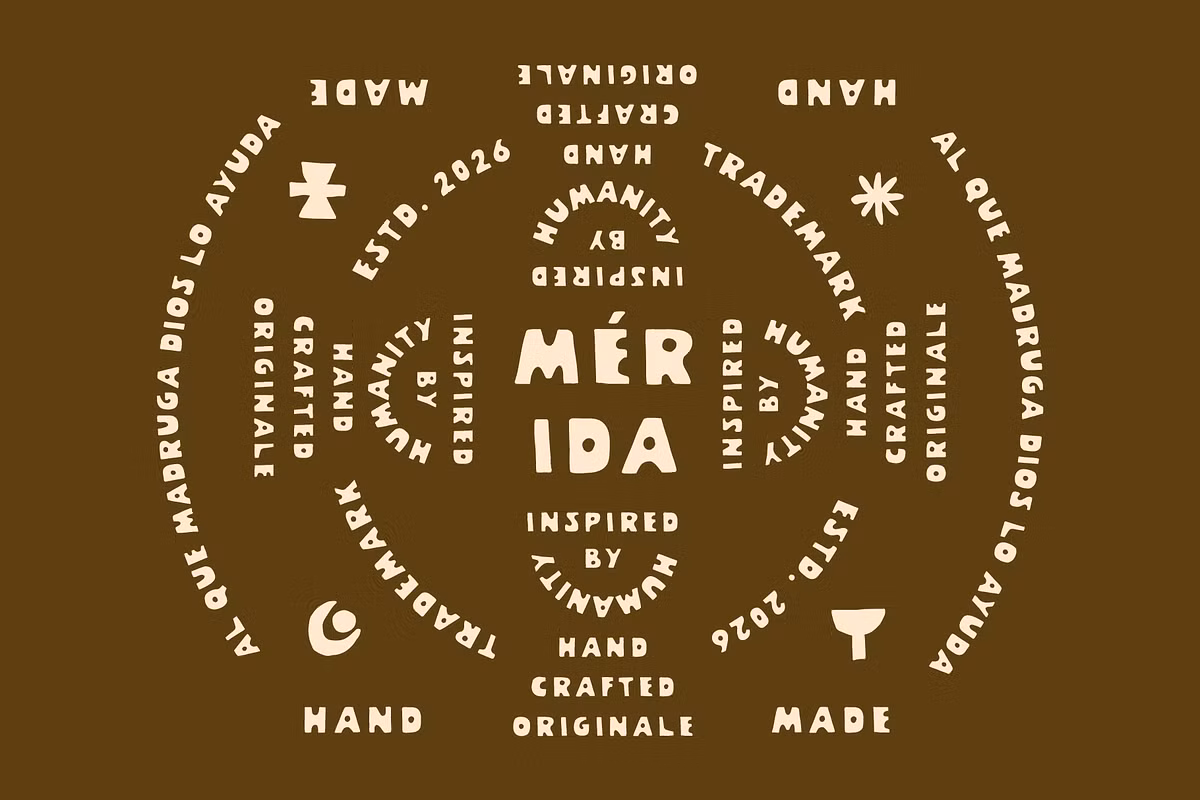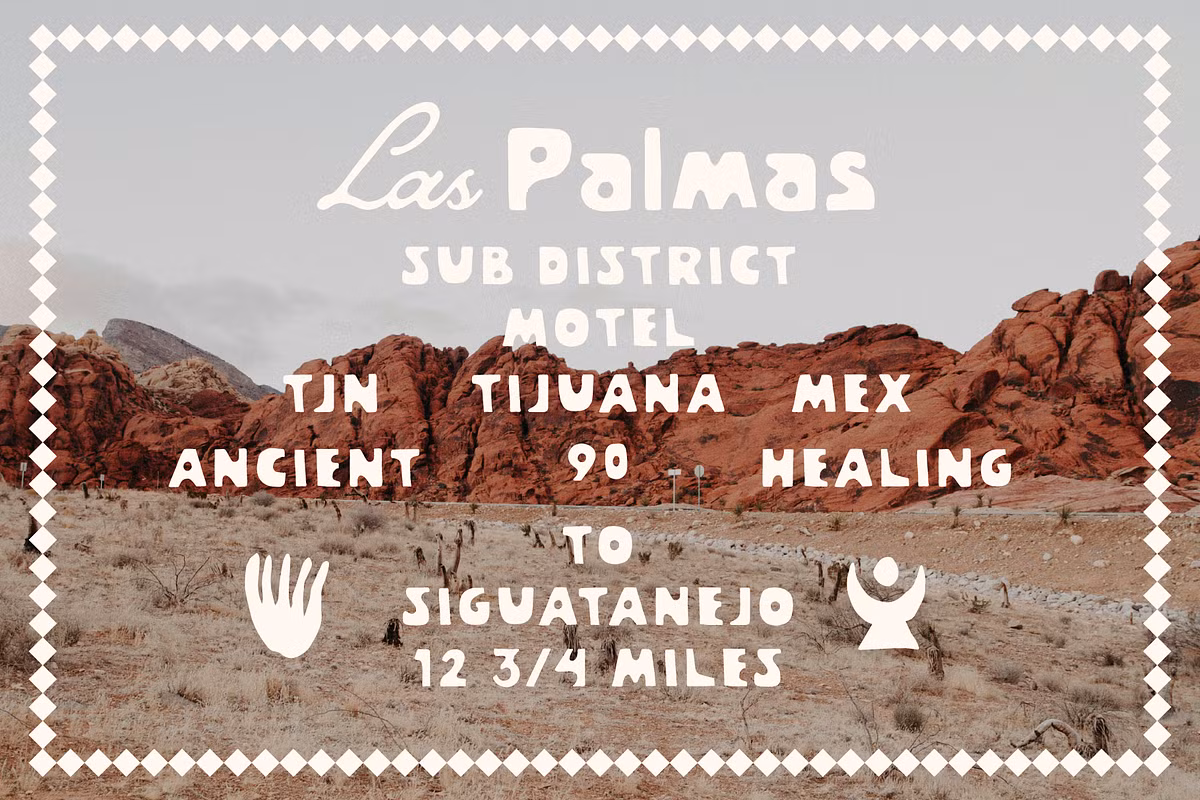
Merida: Bold Handmade Display Typeface for Creative Projects
Merida – Handmade Display Typeface
Merida: Bold Handmade Display Typeface for Creative Projects
Introduction to Merida
Merida is not a typeface. Merida is a handmade display typeface that takes ideas from the folk art, the vintage signage and the playful organic shapes. I use Merida when I need the typeface that feels handmade. Merida has a handmade feel that makes it different, from the typefaces. Each letter in Merida is carefully made. Each letter, in Merida has curves and small irregularities that add warmth and a human touch to the design. When you work on the branding the packaging or the editorial projects Merida can help your creative work stand out.
A visual representation of the Merida typeface showcasing its handmade style
Merida typeface showcasing its unique handmade design.
The design style of Merida draws from folk art and vintage signage. I have used the design style of Merida in my projects and the design style of Merida always feels real. The design style of Merida is bold. The design style of Merida grabs attention. The design style of Merida is handmade. The design style of Merida feels real and easy to approach. The typeface has shapes and friendly sizes. The typeface looks striking. The typeface reads easily. The design style of Merida and the typeface together work well for projects that need personality and character.
Merida has shapes and whimsical design elements. Merida is a choice, for people who want the vibe or the retro vibe. Meridas expressive nature lets Merida communicate the brand story effectively. Merida engages the audiences in a way that the standard typefaces cannot. Meridas artistic flair is perfect, for projects that want to stand out in the marketplace.
Character Sets and Multilingual Support
One of the things, about Merida is the large character set. When I use the typeface I see both letters and lowercase letters so the typeface gives me flexibility, for design jobs. The character set lets designers make text layouts that look good and stay consistent across platforms.
An example of multilingual support available in Merida typeface
Merida’s multilingual support enhances design versatility.
I have used Merida and Merida also includes support. Merida is a choice, for branding and marketing campaigns. The multilingual support lets your designs reach an audience. The multilingual support does not sacrifice style or readability. When you create content, in English, Spanish or any other language Merida keeps its look.
Use Cases for Merida
Merida is very flexible so Merida fits use cases. Below are some ways you can add Merida to your projects:
• Branding: I like how Merida shows boldness and character. When I use Merida I can make logos that stay in the mind of the audience. The logos made with Merida connect with the audience.
• Packaging: For food, for cosmetics for products Merida gives the packaging charm and personality. The packaging feels alive, with Merida.
• Posters: I think Merida looks bright and draws the attention. Merida works well on the posters that need to catch the eyes at the events or, in spaces.
• Editorial Headlines: Use Merida for striking headlines in magazines or online publications to draw readers in.
• Social Media: Social Media can stand out in feeds, with graphics and text. Social Media uses Merida in the Social Media campaigns. Social Media gets attention when Merida is part of the Social Media plan.
• Album Covers: Musicians and artists can use Meridas look to make album artwork. The album artwork can show the musicians and artists style.
• Creative Projects: A design project that needs a touch will gain from the quality of Merida. I have watched many design projects improve when design projects use the quality of Merida.
Visual examples of Merida used in various creative projects
Merida enhancing various creative project designs.
Typography gets stronger when you pair typefaces. Pairing typefaces can lift a design a lot. I have tried Merida in my work. Merida is bold and expressive. Merida pairs, with other typefaces. Below are some pairing suggestions:
• Montserrat: I use Montserrat for the body text to make a contrast, with Merida. Montserrat works with Merida’s hand drawn style. Keeps the text readable.
• Lora: The serif typeface adds a bit of elegance when the serif typeface is paired with Merida. I think the serif typeface is good, for branding projects.
• Raleway: I use Raleway because Raleway has the lines. I use Raleway with Merida because Raleway and Merida work together. Raleway and Merida give the look, for projects. Creative projects that need the clear text can use Raleway and Merida together.
These pairings improve the appeal of your designs. These pairings also help you have the look, across the branding and the marketing materials.
Merida’s licensing and bonus illustrations for designers.
If you are looking for a typeface that feels real crafted and bold try the Merida typeface. The Merida typeface has a handmade feel and an artistic style that makes the Merida typeface a match, for creative projects. Whether you are building a brand working on designs or shaping modern craft looks the Merida typeface adds instant charm and confidence to your work. Explore the potential of the Merida typeface. Let the Merida typeface make your design projects stand out. Try the Merida typeface.